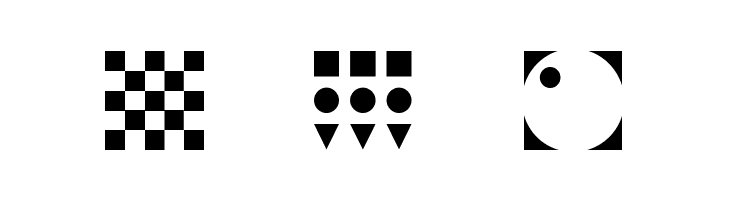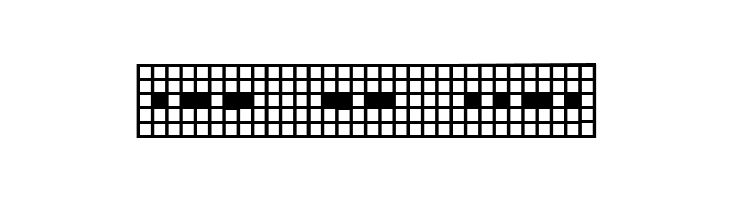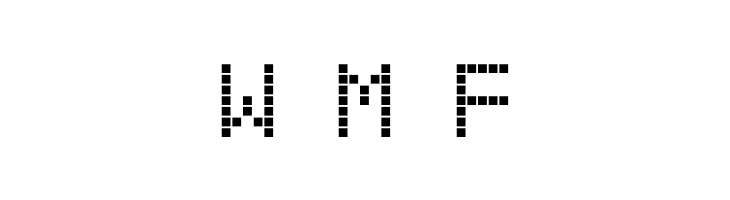
A bold, geometric collection of symbols and shapes within squares.
A playful, domino-inspired font with characters in square tiles featuring dot patterns.
Grid-based, modular typeface mimicking punch card or Morse code patterns.
A pixelated, retro-style font with a blocky, geometric design.
A modern, boxed font with rounded corners and bold, uniform strokes.